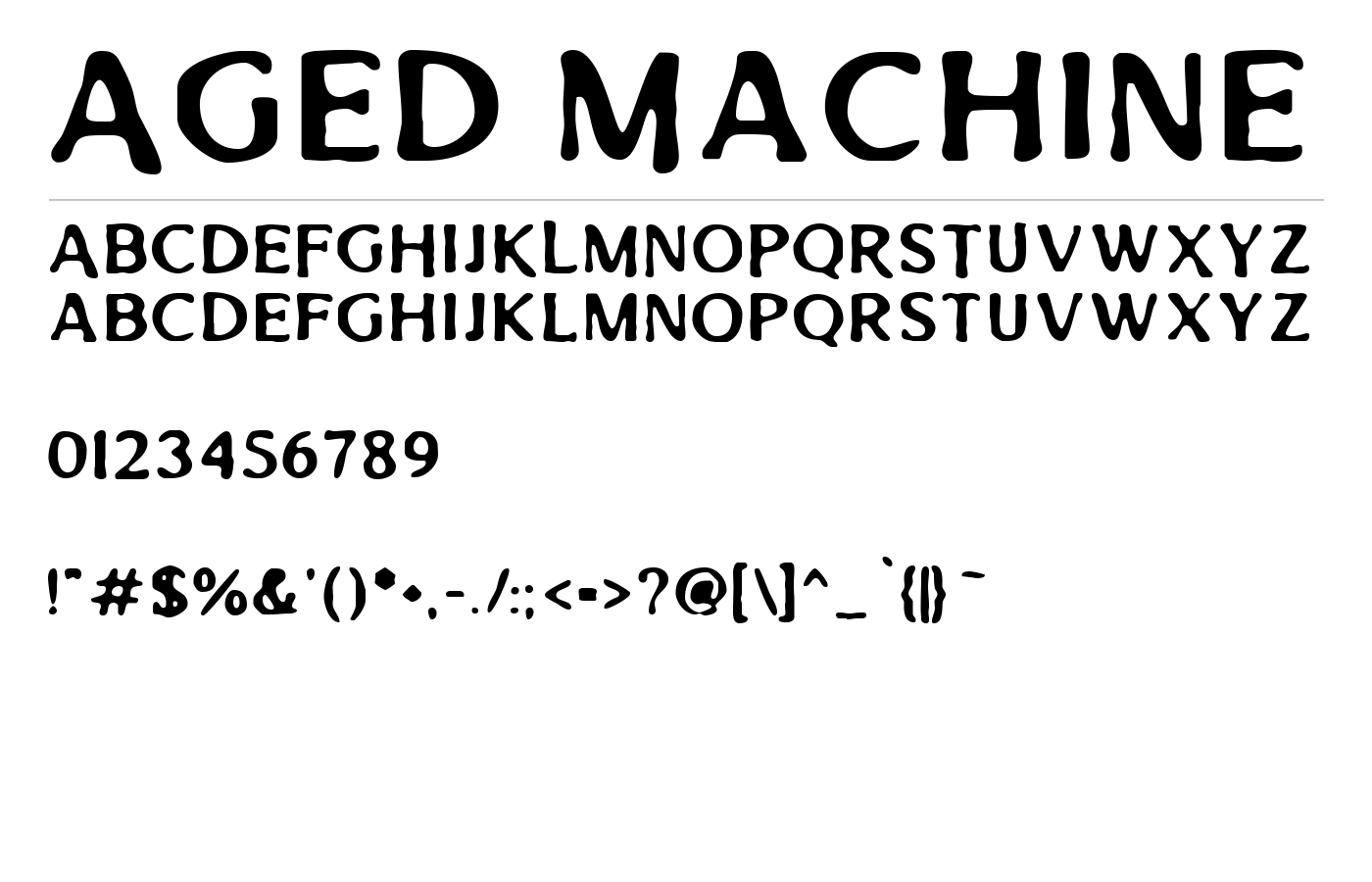
Aged Machine is a quirky, hand-drawn sans serif font with a playful, slightly uneven texture that adds character and warmth. Its rounded strokes and informal style make it perfect for creative projects that want to feel approachable and fun, such as posters, packaging, or casual branding. This font’s unique personality lends itself well to designs needing a vintage yet whimsical touch.
Aged Machine Font
About Aged Machine Font
| Font family | Aged Machine Font |
| Designer | Lettersiro 2019 |